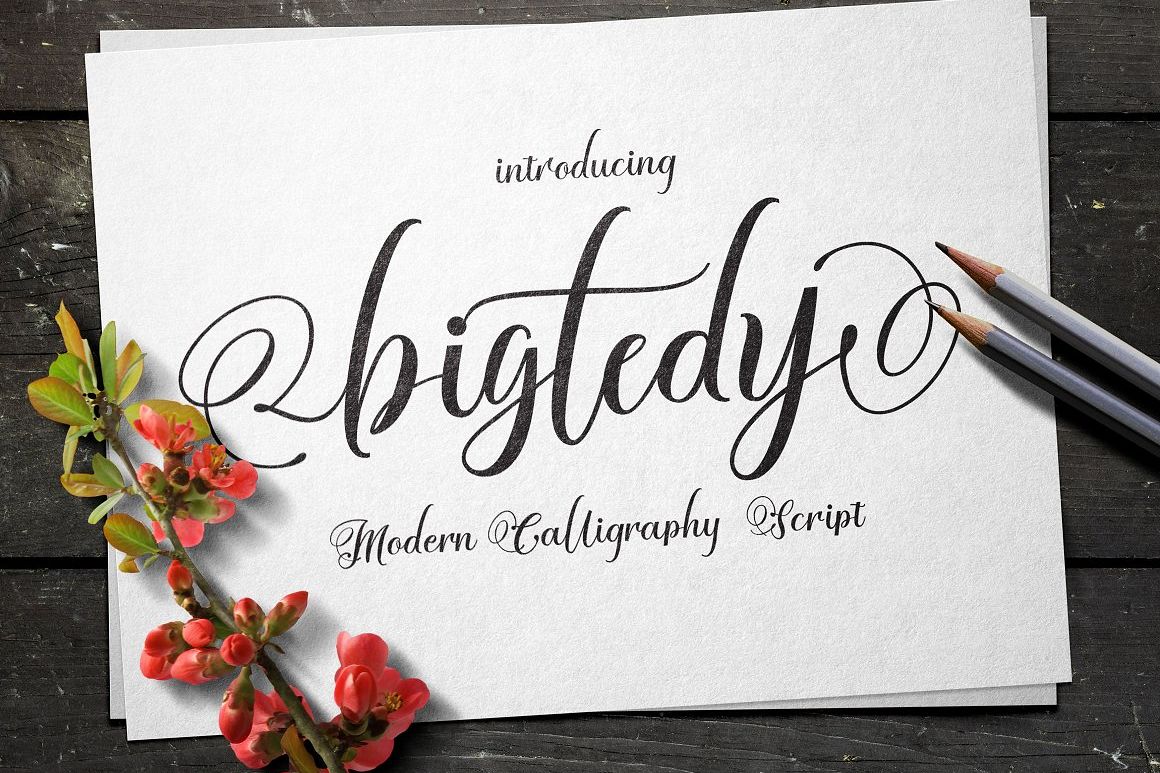
Bigtedy Script
Big Tedy
hi Friends......Bigtedy Script is a beautiful Script Font, It suitable for Signature, greeting cards, T-Shirt, Logo, Branding or any design that you create.comes with a complete set of standard characters, Alternates, Punctuation & international glyphsFeatures
• UPPERCASE
• lowercase
• numeral
• punctuation
• international glyphs
• Support PUA unicode (specially coded fonts)
• Alternates Glyphs